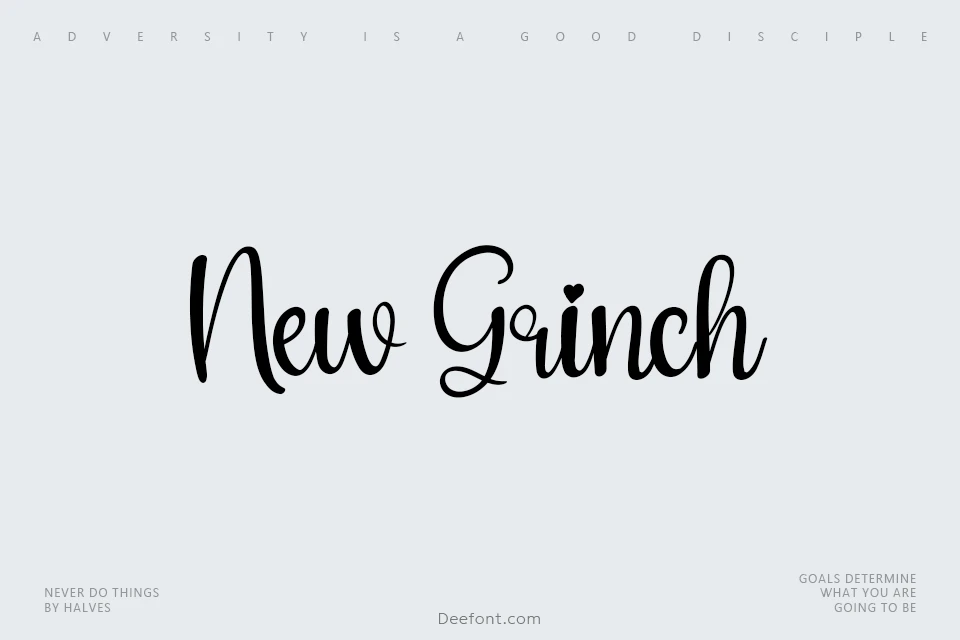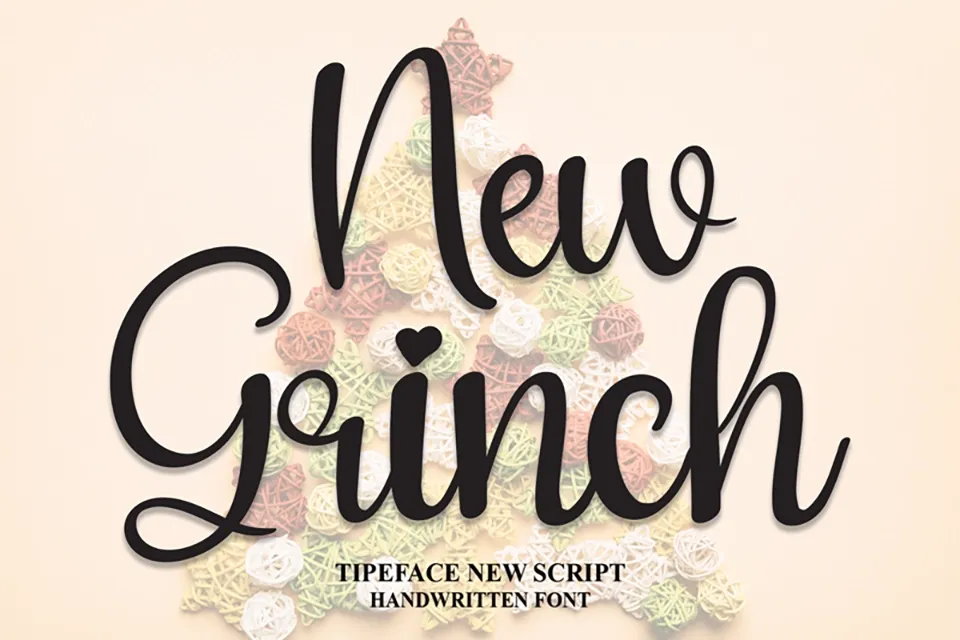
New Grinch Font
New Grinch Font is a modern handwritten script typeface, perfect for wall displays, wedding invitations, social media posts, logos, advertisements, product packaging, and various creative projects. Its playful and charming handwritten style brings a festive and friendly touch to any design, making it especially suitable for holiday-themed works and cheerful branding.
Designed by:Andi MozWebsite